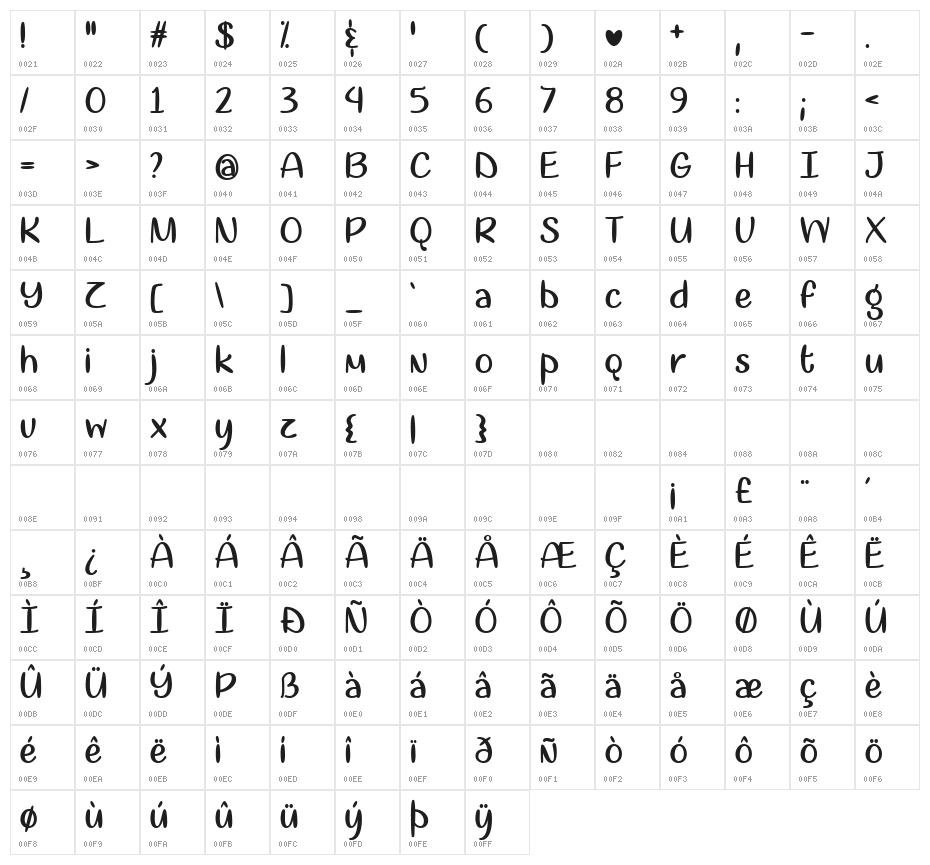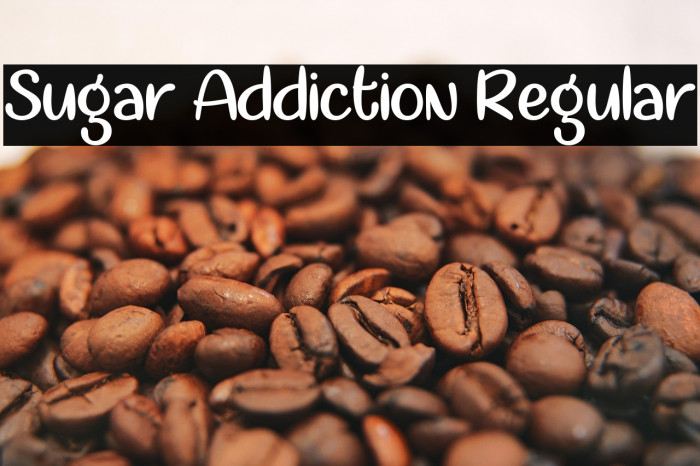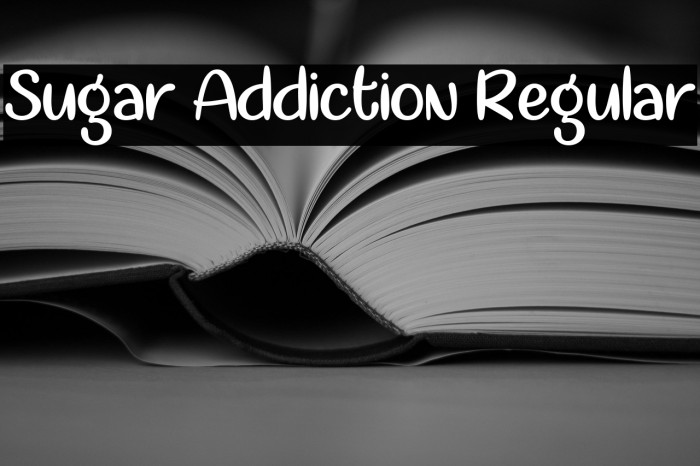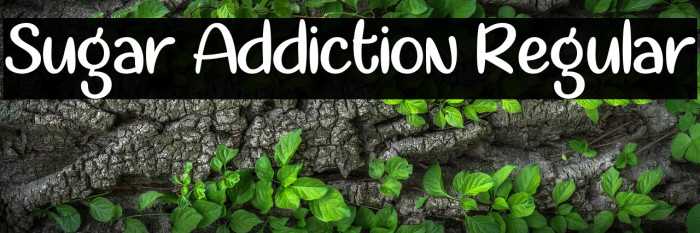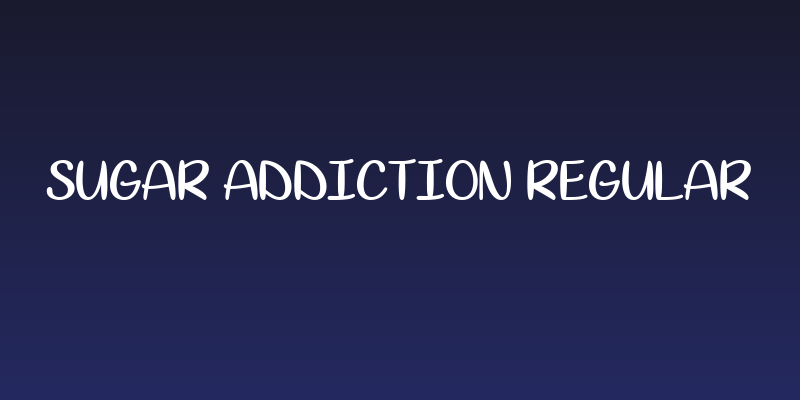
Sugar Addiction Regular Font
Sugar Addiction Regular Description
This playful and whimsical font features rounded, smooth edges and a handwritten style that exudes a friendly and approachable vibe. The characters are bold and slightly condensed, with a consistent stroke width that maintains readability while adding a touch of personality. The uppercase letters are slightly taller than the lowercase, creating a dynamic contrast that enhances the font's charm. The numerals and special characters are designed to match the overall style, ensuring a cohesive look across all text elements. This font is perfect for projects that require a fun and informal touch.
| Proposed Projects | Ideal for children's books, greeting cards, playful branding, and social media graphics. |